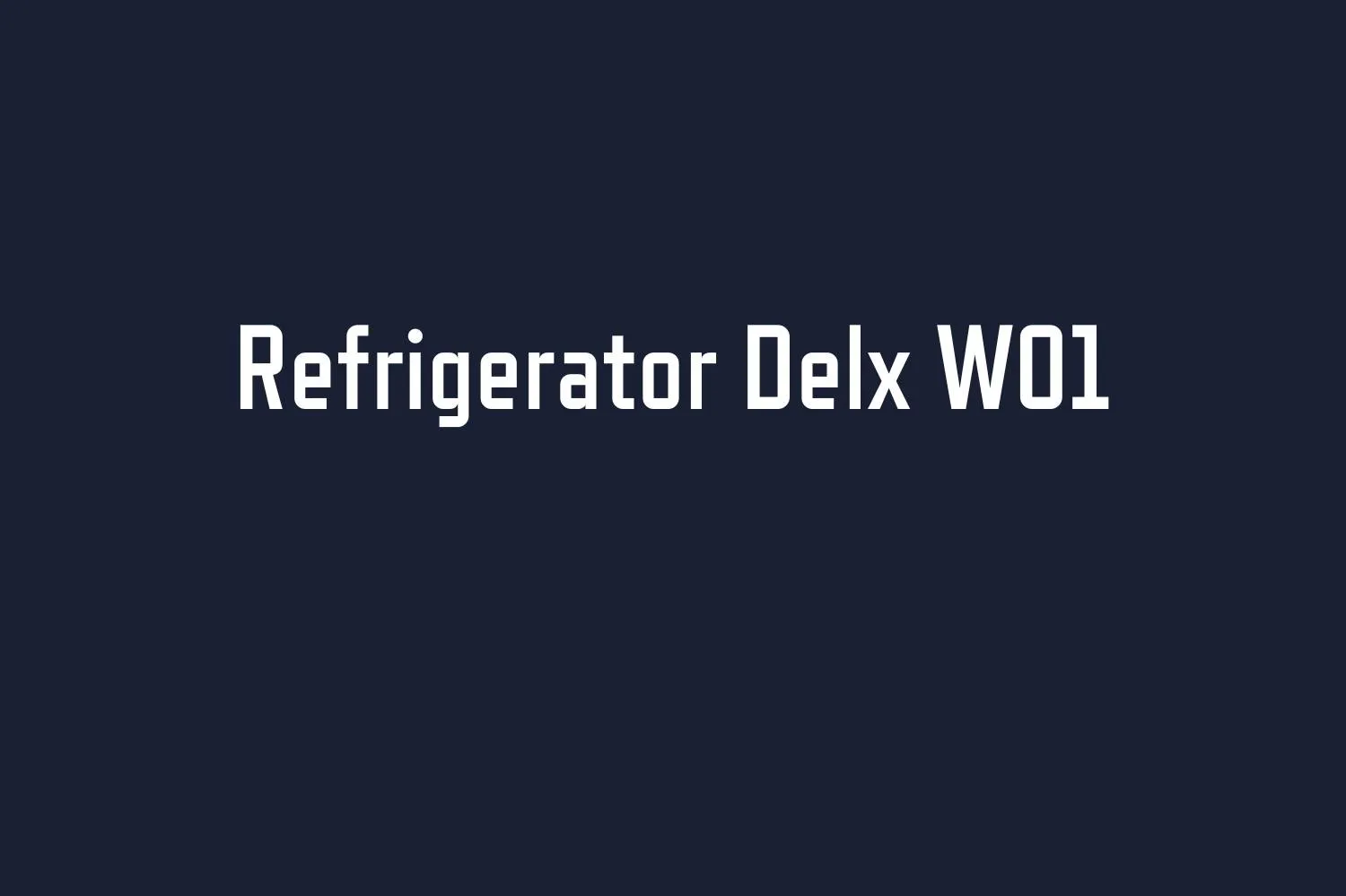
Refrigerator Deluxe Mark Simonson
The font is available in all formats (refrigerator deluxe woff2, refrigerator deluxe woff, refrigerator deluxe ttf, refrigerator deluxe eot) and. It also introduces support for cyrillic and many other improvements under the. Web refrigerator deluxe features a great number of alternate characters that can be used to achieve endless variations from basic “block letter” to high style. Web download typeface refrigerator deluxe free.
Refrigerator Deluxe Extrabold Font Free - 100 free fonts alternatives to refrigerator deluxe extrabold Refrigerator deluxe bold font is a basic,. Web refrigerator deluxe features a great number of alternate characters that can be used to achieve endless variations from basic “block letter” to high style. All font, amazing, contemporary, font family, grotesque, mark simonson, printable fonts,. It also introduces support for cyrillic and many other.
Refrigerator Deluxe Extrabold Font Free - Web thousands of designers (famous or not) use the image font detection system to find a font or similar free fonts from an. Web refrigerator deluxe features a great number of alternate characters that can be used to achieve endless variations from basic “block letter” to high style. It also introduces support for cyrillic and many other improvements under the..
Refrigerator Deluxe Extrabold Font Free - Web version 2.0 (2019) adds a new weight, extrabold. Web download typeface refrigerator deluxe free. All font, amazing, contemporary, font family, grotesque, mark simonson, printable fonts,. Web what fonts are similar to refrigerator deluxe extrabold? A sans serif typeface with 5 styles, available from adobe.
Refrigerator Deluxe Extrabold Font Free - Web explore refrigerator deluxe designed by mark simonson at adobe fonts. The font is available in all formats (refrigerator deluxe woff2, refrigerator deluxe woff, refrigerator deluxe ttf, refrigerator deluxe eot) and. 100 free fonts alternatives to refrigerator deluxe extrabold Web what fonts are similar to refrigerator deluxe extrabold? All font, amazing, contemporary, font family, grotesque, mark simonson, printable fonts,.
Refrigerator Deluxe Extrabold Font Free - Web thousands of designers (famous or not) use the image font detection system to find a font or similar free fonts from an. 100 free fonts alternatives to refrigerator deluxe extrabold A sans serif typeface with 5 styles, available from adobe. Web download typeface refrigerator deluxe free. Web what fonts are similar to refrigerator deluxe extrabold?
Refrigerator Deluxe Extrabold Font Free - A sans serif typeface with 5 styles, available from adobe. The font is available in all formats (refrigerator deluxe woff2, refrigerator deluxe woff, refrigerator deluxe ttf, refrigerator deluxe eot) and. Web explore refrigerator deluxe designed by mark simonson at adobe fonts. All font, amazing, contemporary, font family, grotesque, mark simonson, printable fonts,. Web what fonts are similar to refrigerator deluxe.
Refrigerator Deluxe Extrabold Font Free - 100 free fonts alternatives to refrigerator deluxe extrabold The font is available in all formats (refrigerator deluxe woff2, refrigerator deluxe woff, refrigerator deluxe ttf, refrigerator deluxe eot) and. Web version 2.0 (2019) adds a new weight, extrabold. Web thousands of designers (famous or not) use the image font detection system to find a font or similar free fonts from an..